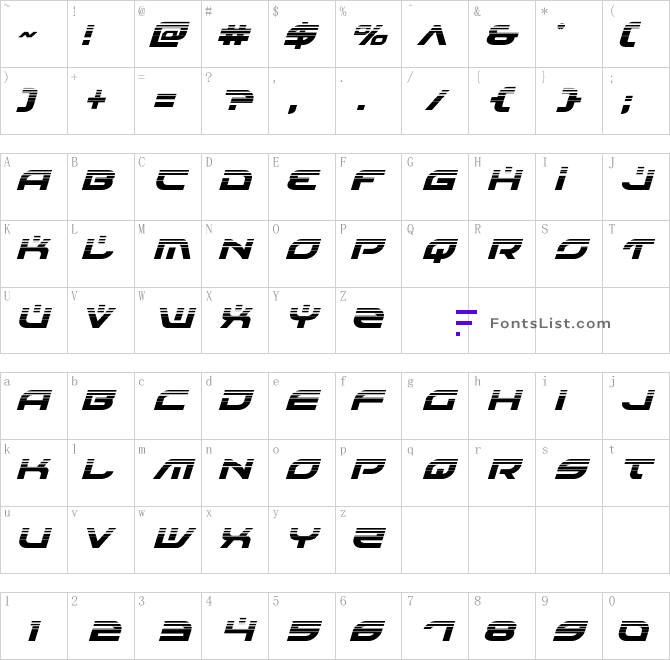
- Font Name:Battlefield Halftone Italic
Battlefield-Halftone-Italic.ttf is a very beautiful artistic font, Battlefield-Halftone-Italic.ttf is widely used in the design and printing of various books and pictures,Battlefield-Halftone-Italic.ttf has a strong visual impact,Battlefield-Halftone-Italic.ttf is a commonly used font in newspapers, magazines and books, and is used in posters, e-commerce Poster design, store design, logo design, font design and other fields.Battlefield-Halftone-Italic.